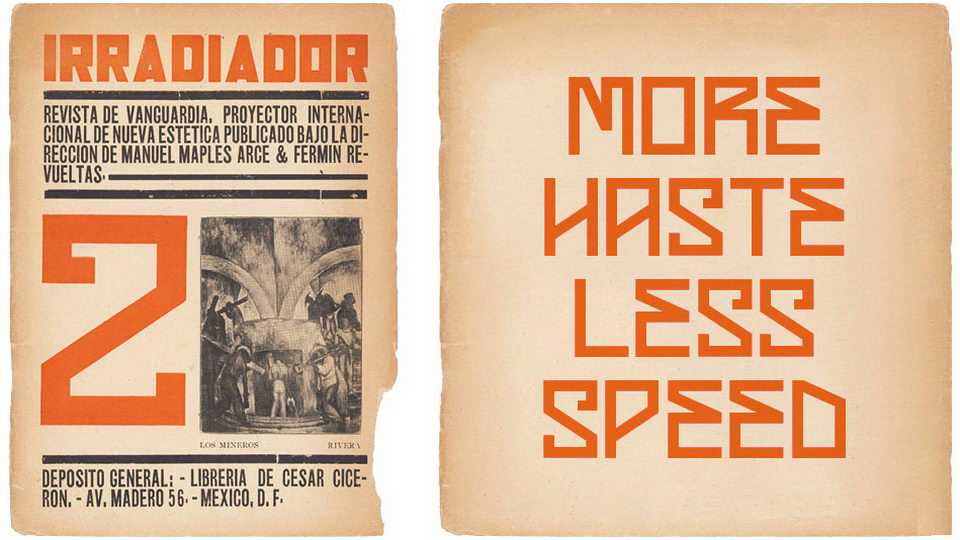
Irradiador Font › Fontesk – Fonte Grátis
Download Irradiador font, a rectangular display typeface with an angular character. The alphabet was designed in response to the title lettering on Fermín Revueltas’ 1923 journal.
Designer: Brian LaRossa